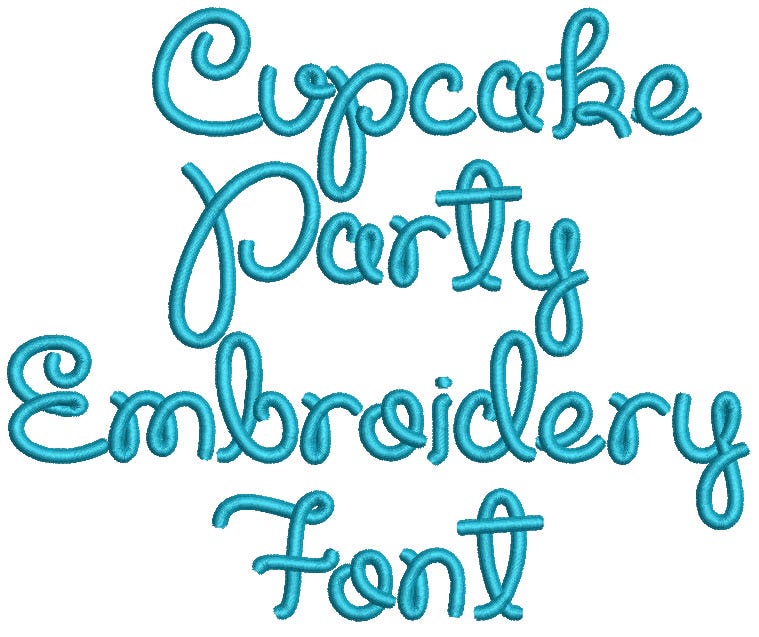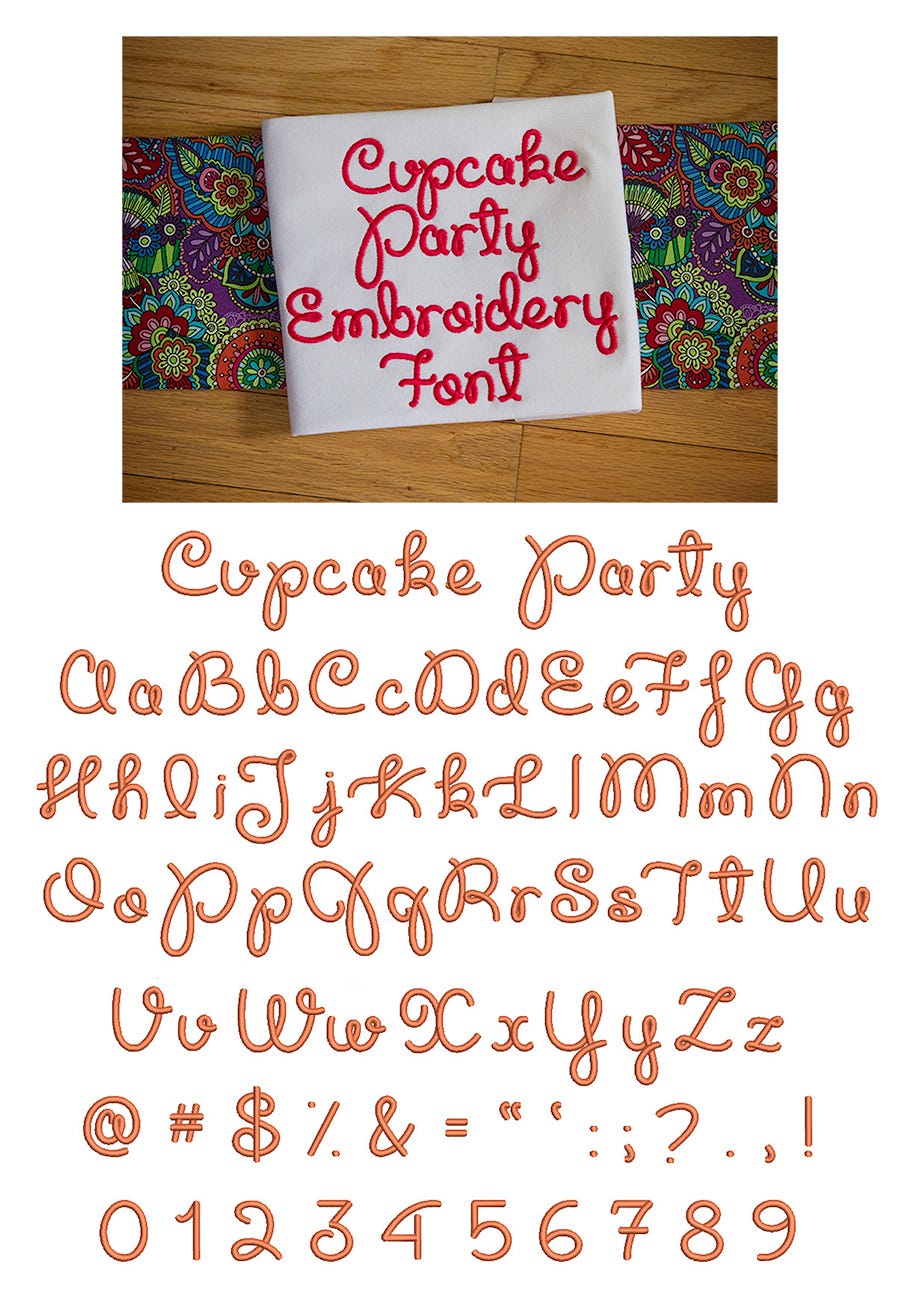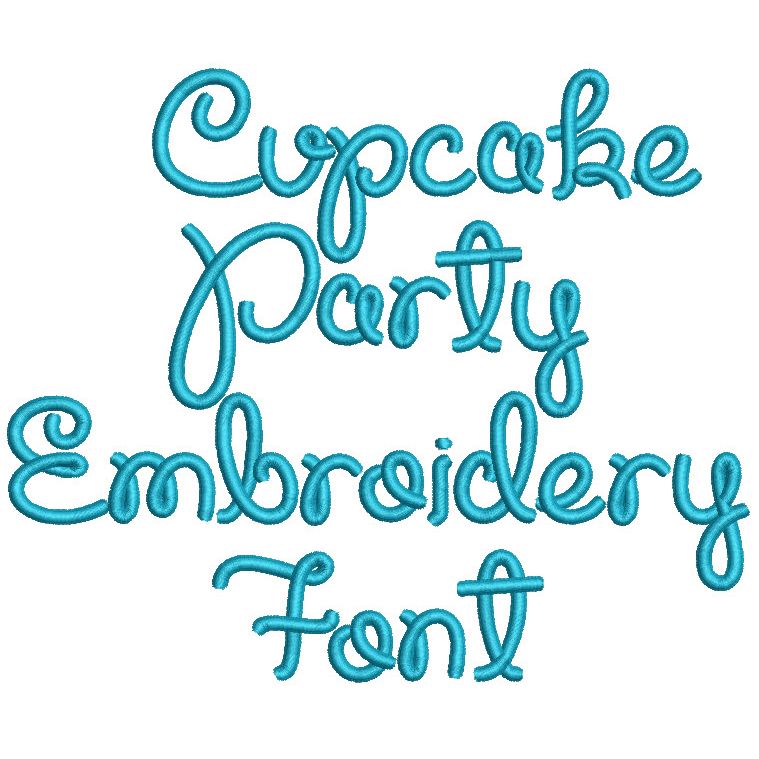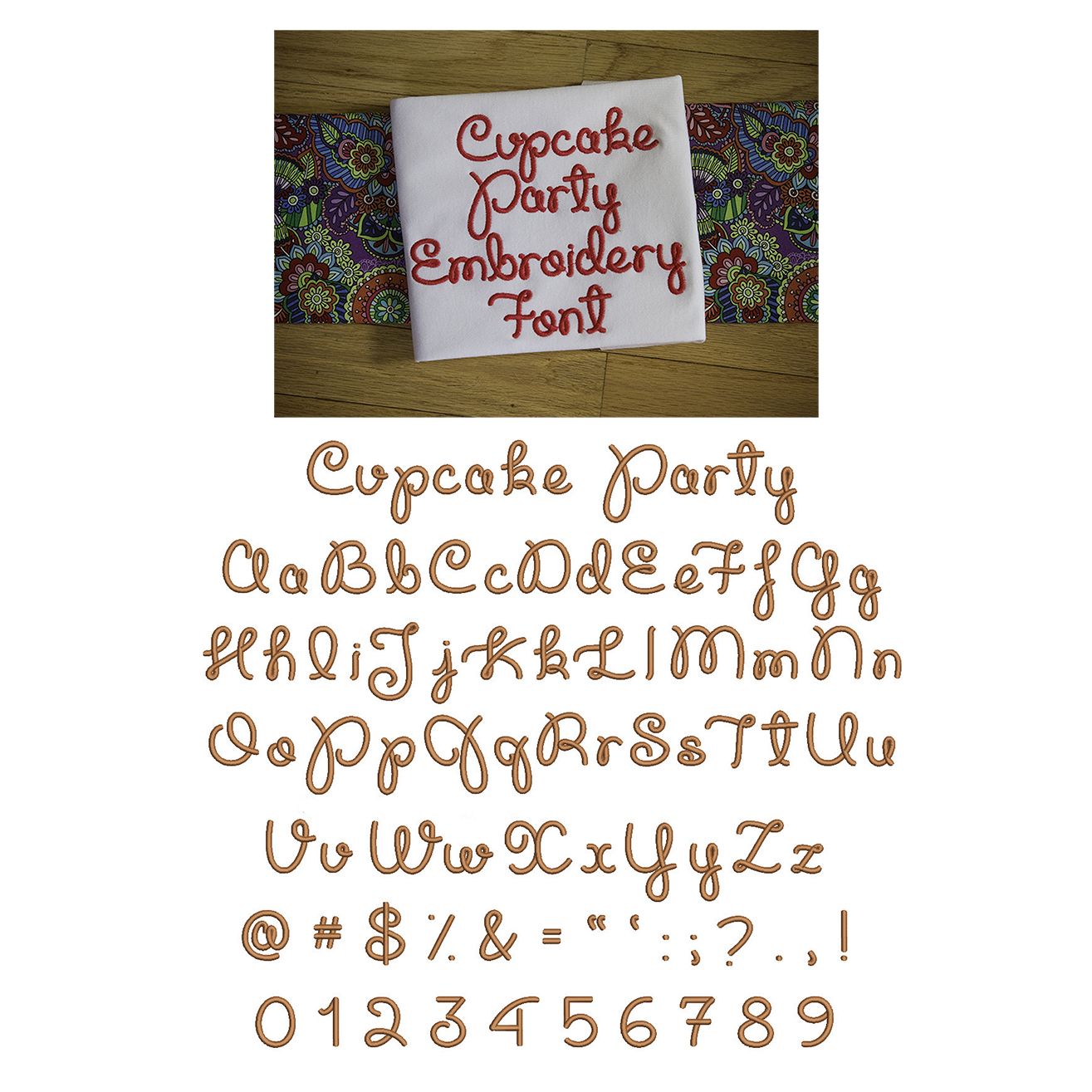
Cupcake Party Satin Stitch Embroidery Font
A super fun and sweet whimsical script font!  All of our font alphabets are 100% manually digitized to bring you maximum stitch quality.